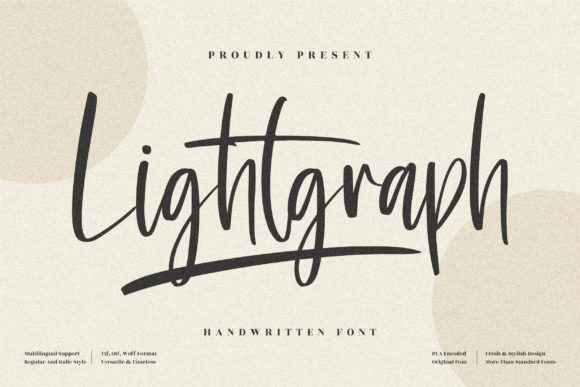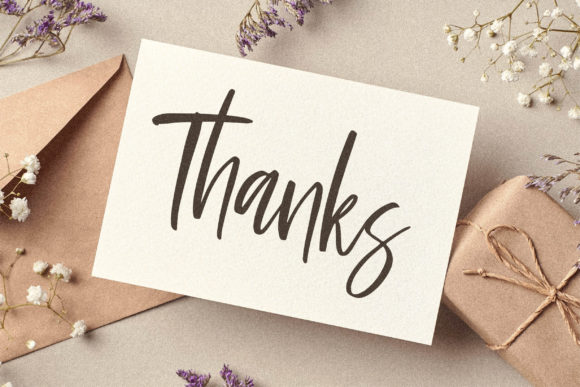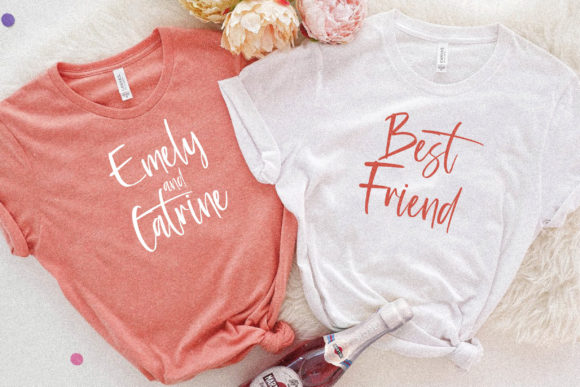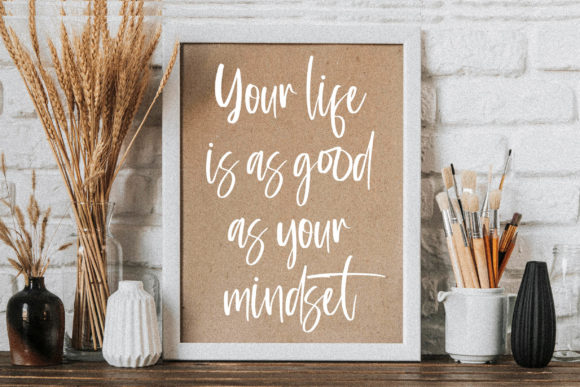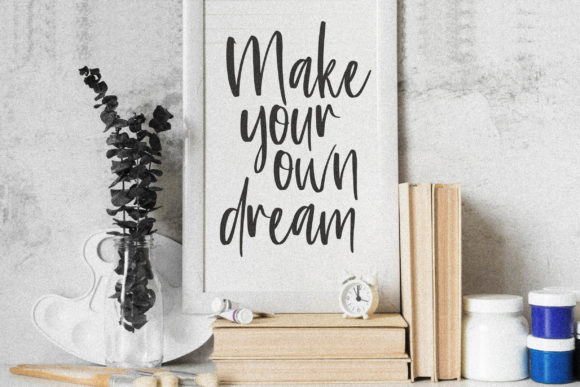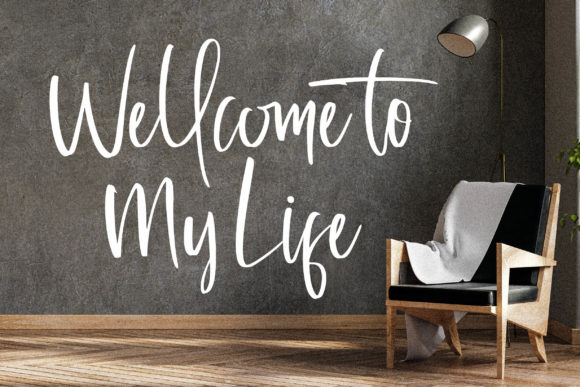
About Lightgraph Font
Lightgraph is a chic, refined script font that emanates sophistication and elegance. Its stylish alternates and ligatures make this font the perfect match for any project.